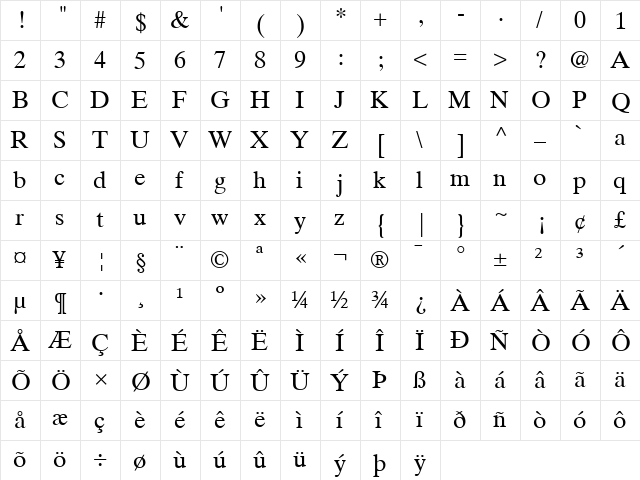
Times Ten Regular
Design Context for Times Ten Typeface
Times Ten offers clean, dependable letterforms without strong stylistic allegiance, making it a practical choice for designers who need flexibility.
Pro Tip: Use Times Ten in both headline and body roles to test its range before committing to a single application.